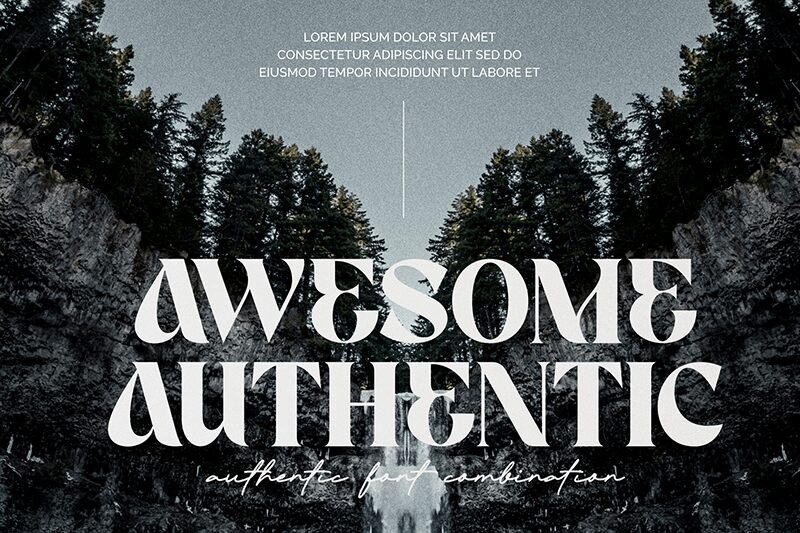
Page Serif font by Riyadh Rahman is a free stylized serif font that captures the essence of vintage elegance with a modern twist. It emanates a strong visual impact, combining sophistication with an ornamental flair. This font is characterized by its artistic texture and classical feel, making it an exceptional choice for those seeking to blend traditional design with contemporary aesthetics.
Perfect for modern branding, editorial use, packaging, posters, book covers, magazine layouts, logo design, invitations, wedding stationery, social media graphics, signage, and menu design, Page Serif seamlessly adapts to a variety of applications. Its versatile nature ensures that it enhances any project with its distinctive style.